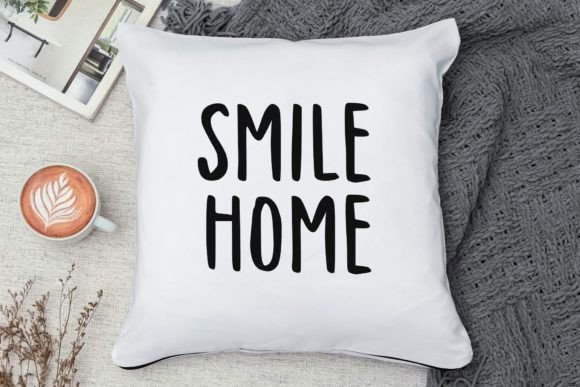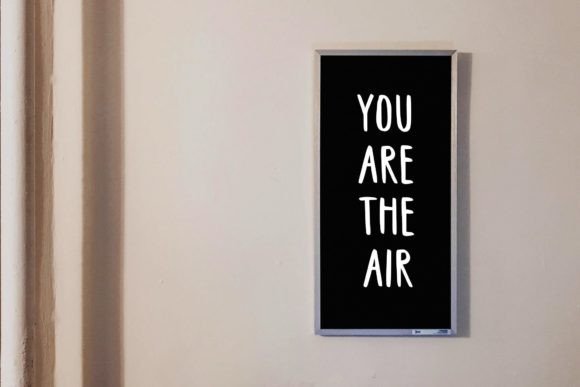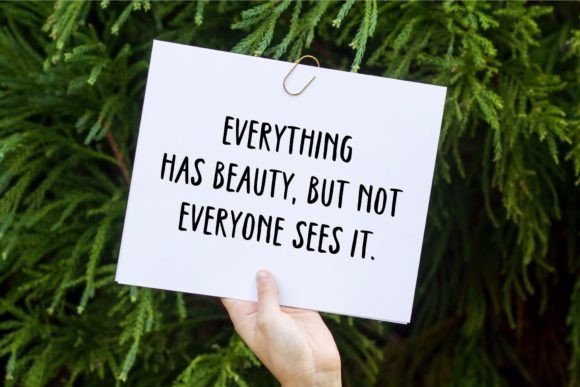
Introduction to Orange Stalk Font
As a designer, have you ever stared at a blank canvas, trying to bring your creative project to life? The perfect font can make all the difference, transporting your vision from mere concept to stunning reality. For those seeking a high-quality, authentic look for their chalkboard quotes or teaching materials, I’m excited to introduce you to the Orange Stalk Font.
This free download has become a valuable design resource for creatives, offering a unique, handwritten feel that adds a personal touch to any design. With its tall and thin lettered style, Orange Stalk Font is perfect for adding a touch of whimsy and elegance to your work. And with PUA encoding, accessing its amazing glyphs and ligatures is easier than ever, allowing you to customize your designs with ease.
Whether you’re working on a creative project that requires a transparent background or simply want to add some visual interest to your designs, Orange Stalk Font is an excellent choice. Its realistic feel and versatility make it an invaluable asset for designers seeking to elevate their work.
Key Features of Orange Stalk Font
- High-quality design resource ideal for creative projects requiring a unique touch.
- Transparent background, making it perfect for designers working with transparent or gradient backgrounds.
- Unique, hand-drawn style with bold lines and organic shapes, adding a creative touch to any design.
- High-resolution design, suitable for use in print and digital media, including web design and graphic design.
- Perfect for designers looking for a free, high-quality font to add a personal touch to their creative projects.
Honest Review: Orange Stalk Font
As a designer, I’m always on the lookout for high-quality design resources to elevate my creative projects. The Orange Stalk Font is a great example of a free download that delivers.
What works well: ✨ The Orange Stalk Font is incredibly versatile, making it perfect for a wide range of designs. The sleek, modern aesthetic is sure to add a touch of sophistication to any project. Plus, the transparent background allows for seamless integration with other design elements.
- High-quality design with a modern aesthetic
Limitations: ⚠️ While the Orange Stalk Font is an excellent addition to any design library, it may not be the best choice for projects requiring a more playful or whimsical feel. Additionally, the font’s simplicity may not be suitable for designs requiring a lot of visual interest.
Overall, I’m impressed with the Orange Stalk Font. Its high-quality design and versatility make it a valuable resource for any designer looking to elevate their creative projects.
Use the Orange Stalk Font in creative ways, such as:
- Creating eye-catching headings and titles.
- Adding a personal touch to your designs.
- Experimenting with different font sizes and styles.
The Orange Stalk Font is commonly used in:
- Graphic design projects.
- Web design projects.
- Print design projects.
Q: Does Orange Stalk Font have a transparent background?
Yes, Orange Stalk Font has a transparent background, making it easy to use in various design applications. This feature allows you to place the font over any background image or color without worrying about it being obstructed.